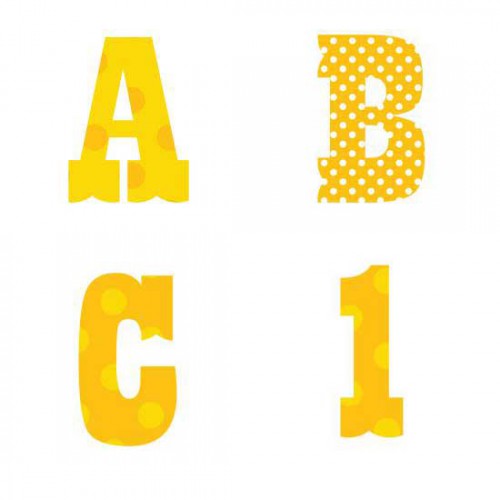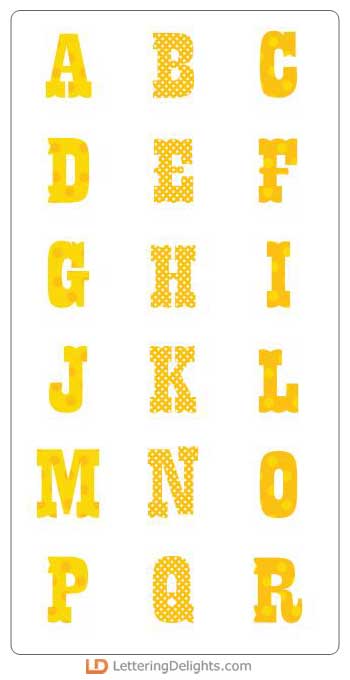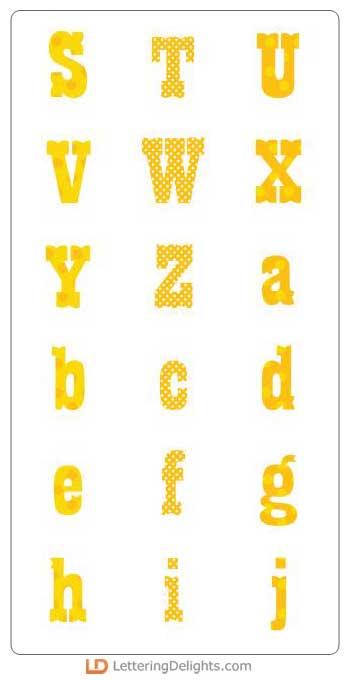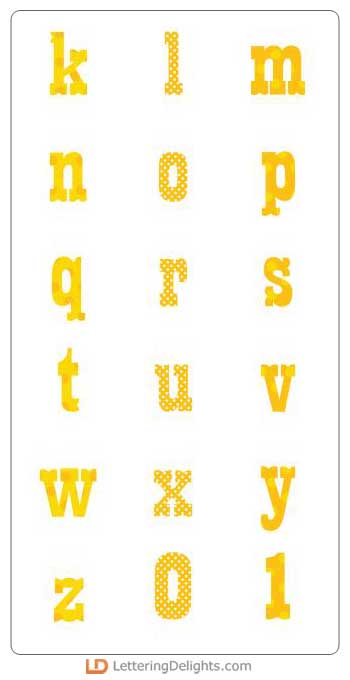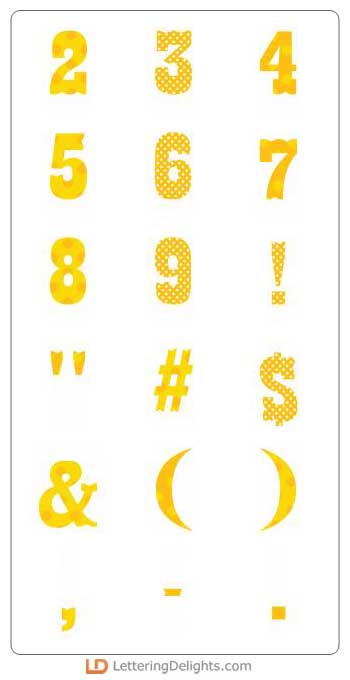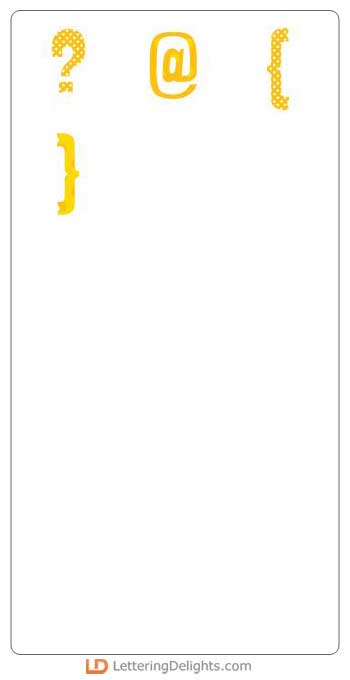
Pull on your sunglasses when adding the Sunny Seas Alphabet to your creative projects...We bet one of our artists that she couldn't mimic a sunny day at the beach, and we lost! Plus, note that these characters take their shape from the LDJ Whale Tail font--a perfect pair for teaming high impact words and titles with information and journaling.